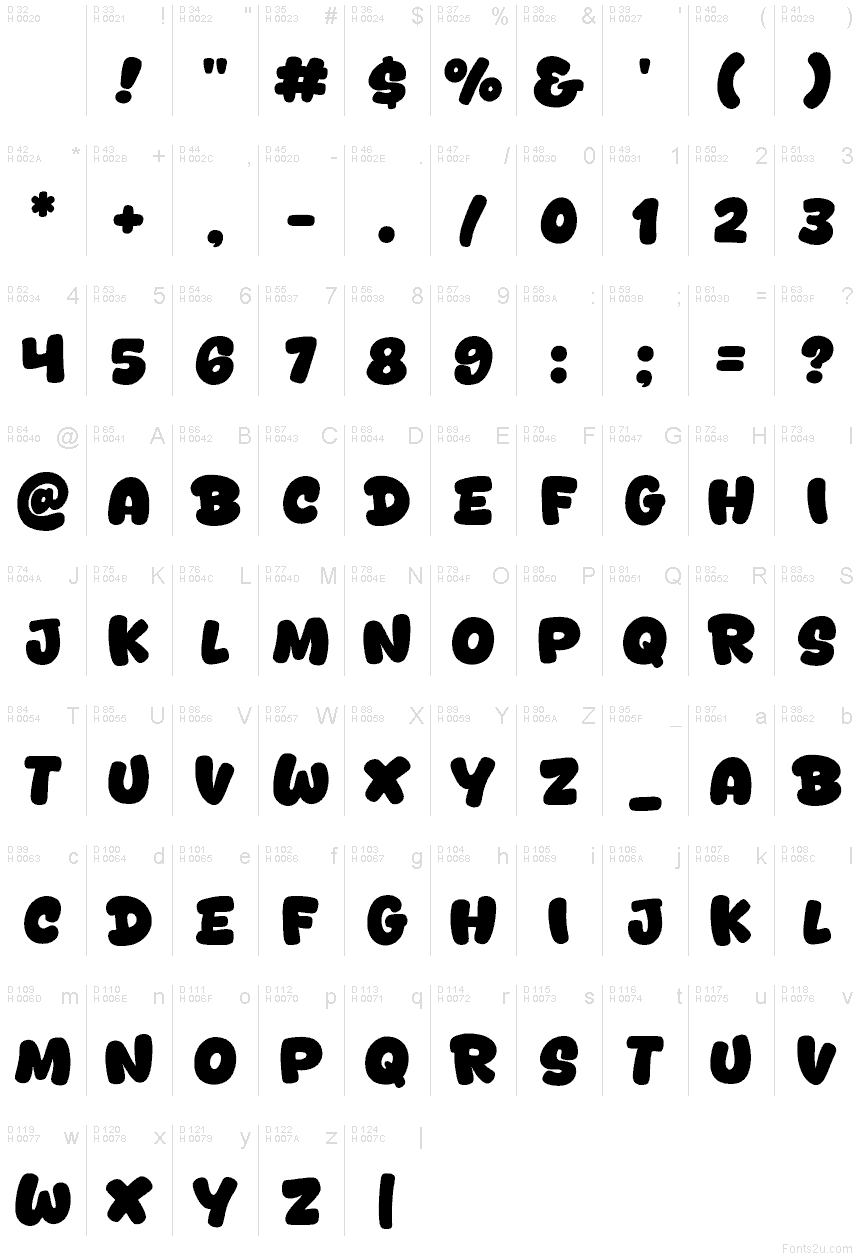
Bond Time
Bond Time font is a cartoonish display font by Khurasan. Combining bouncy characters in a casual style, the bold and rounded black letters instantly grab attention making them suitable for plenty of high-impact design projects. The modern aesthetic can have some traditional influences making it versatile enough for more classic artwork as well.